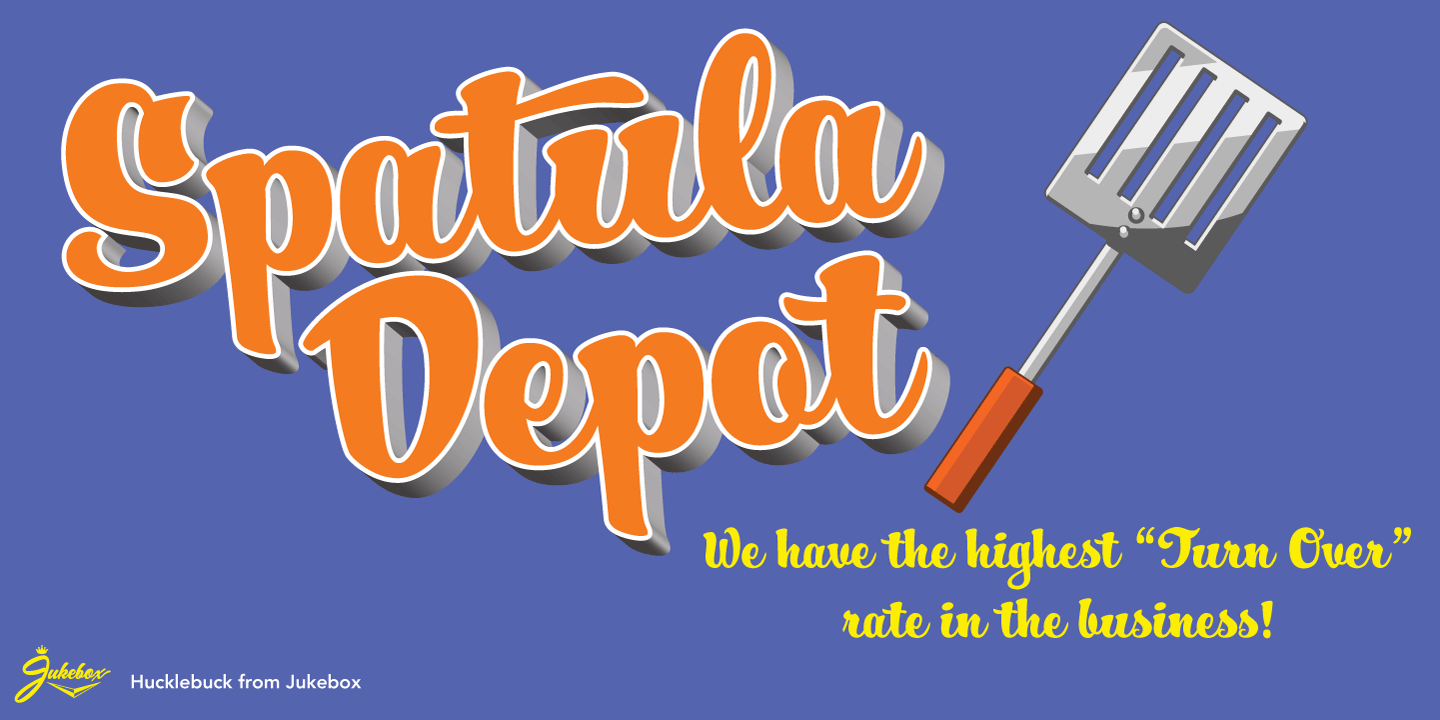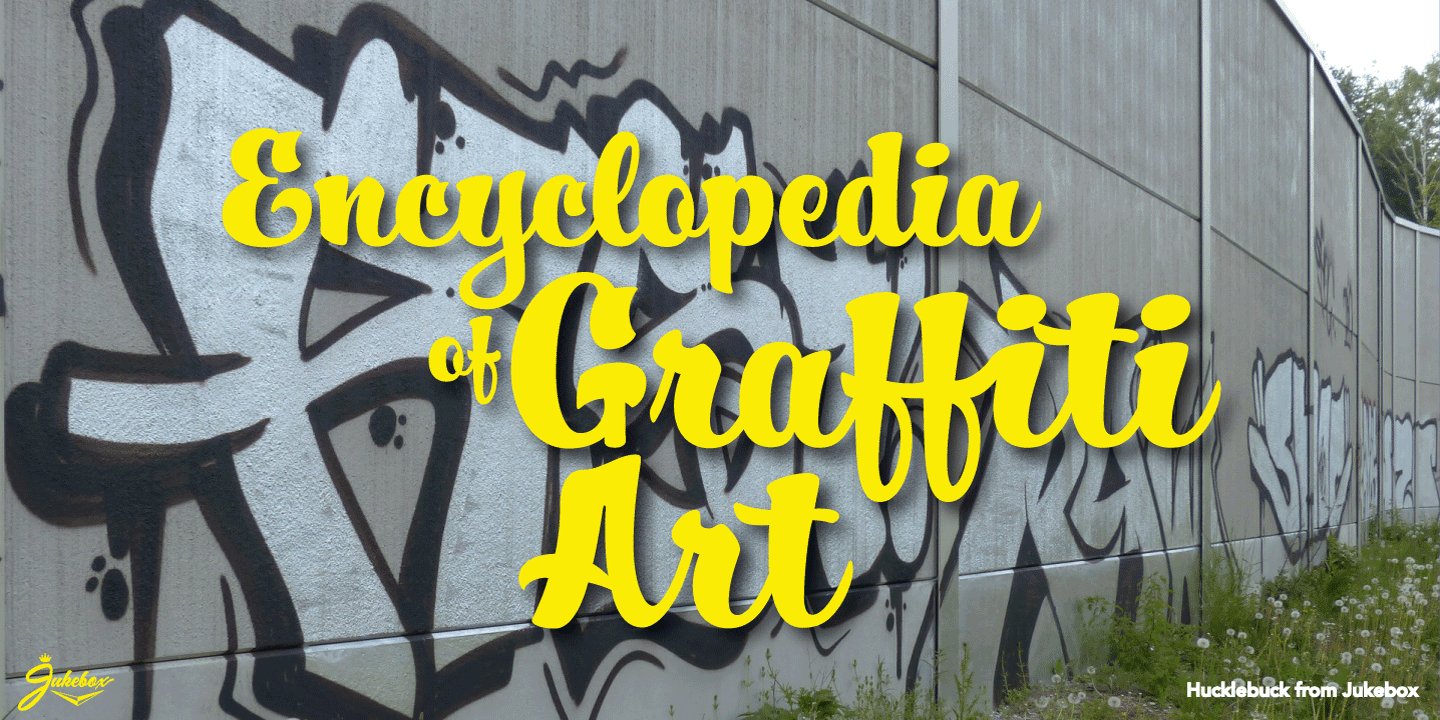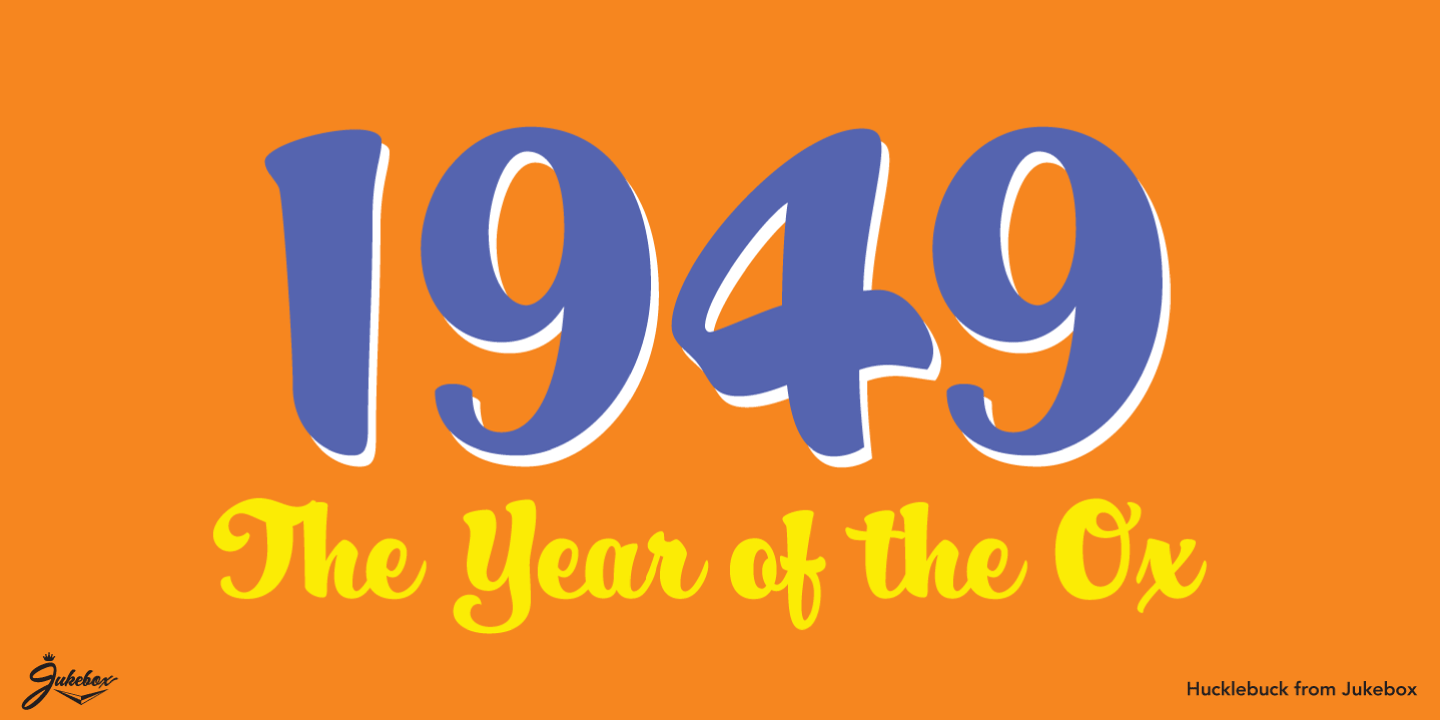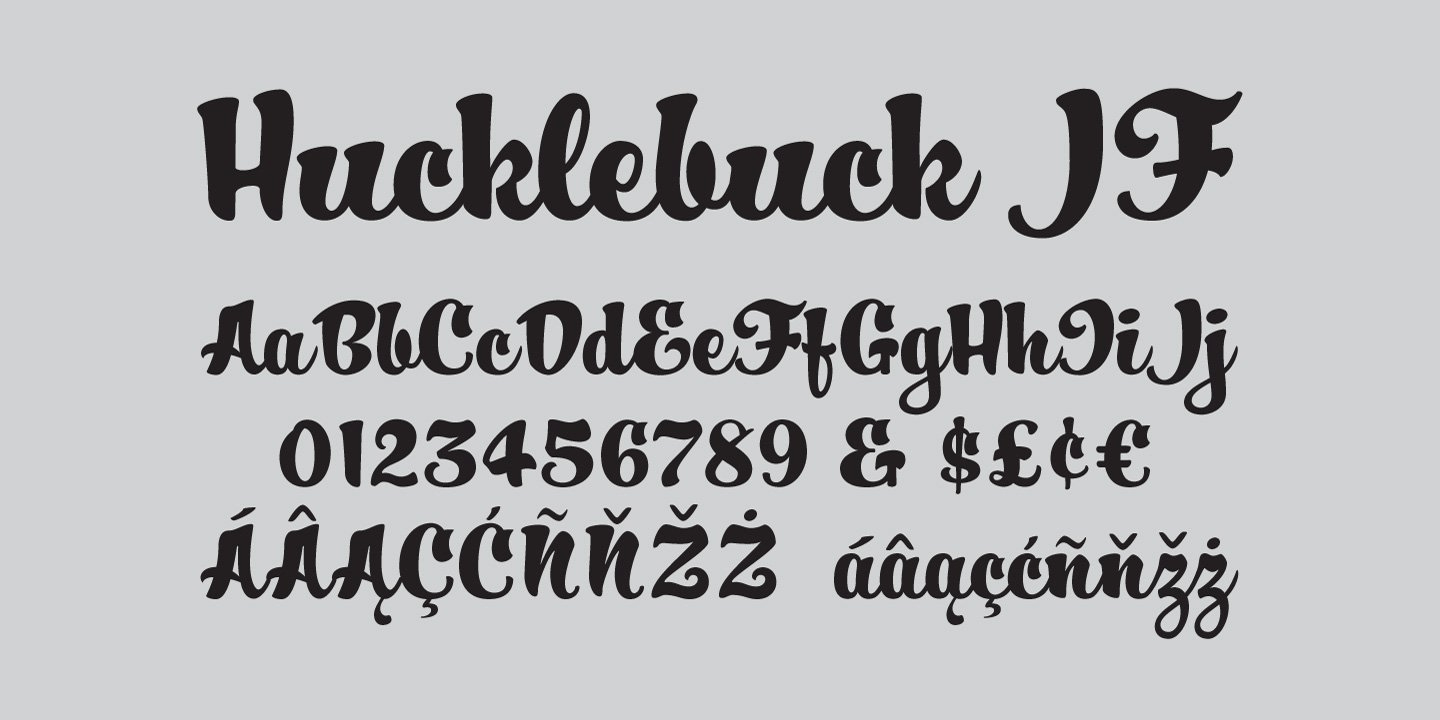
About Hucklebuck
Hucklebuck is a retro, upright script font that is immensely appealing with its happy?go?lucky feel. Done in the style of hand painted sign lettering, the font was inspired by some window lettering on an old store near where I live. Hucklebuck was a pet…